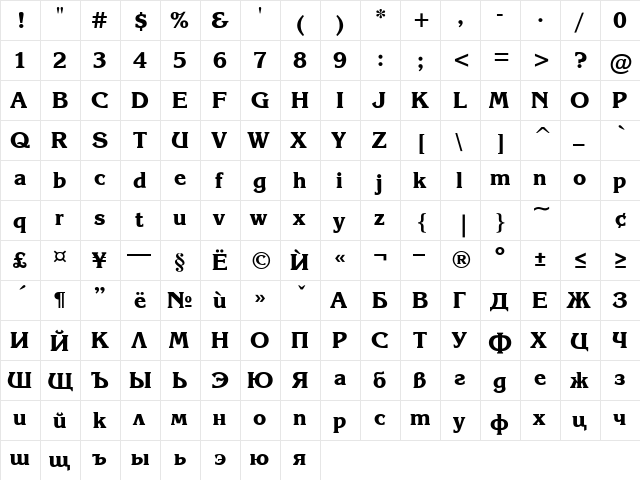
Karina Black Rus Regular
Design Context for Karina Black Rus Typeface
Karina Black Rus takes a measured approach to typography — its balanced proportions and neutral character make it a reliable workhorse for both digital and print work.